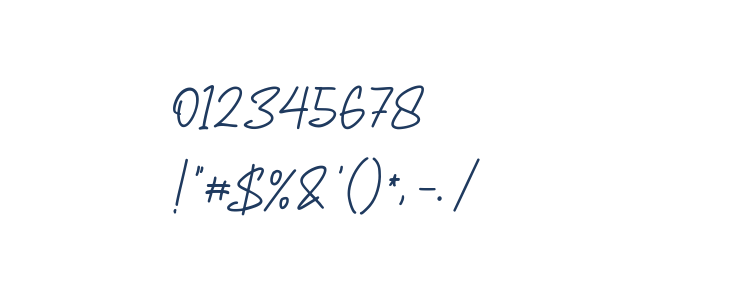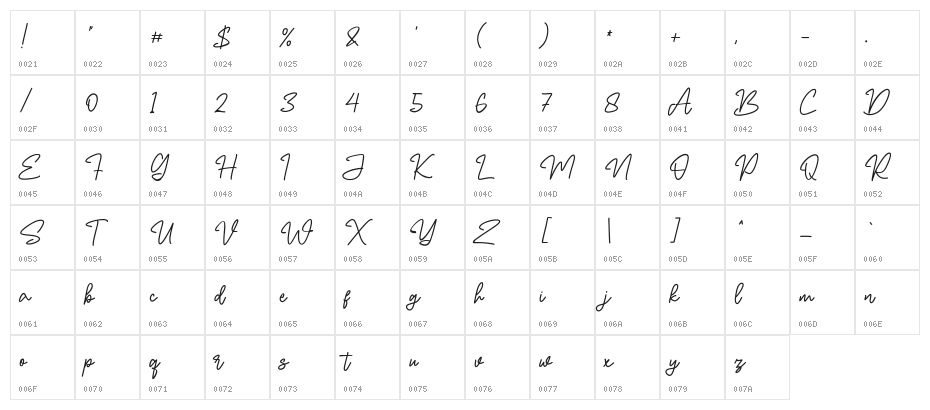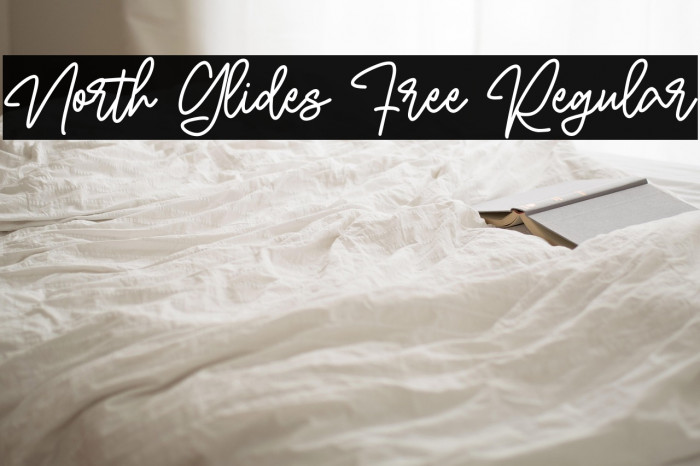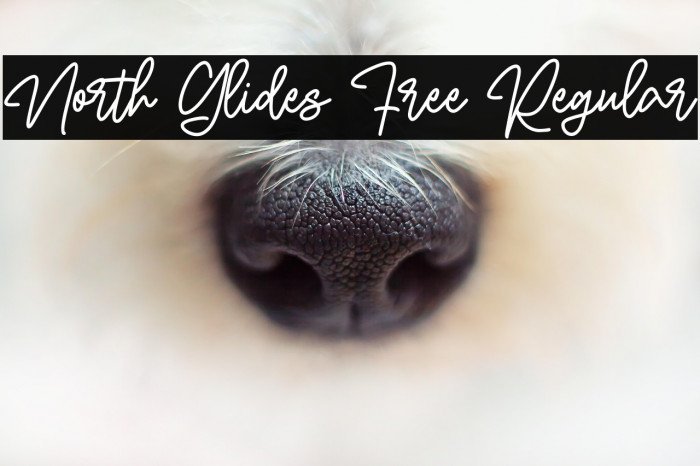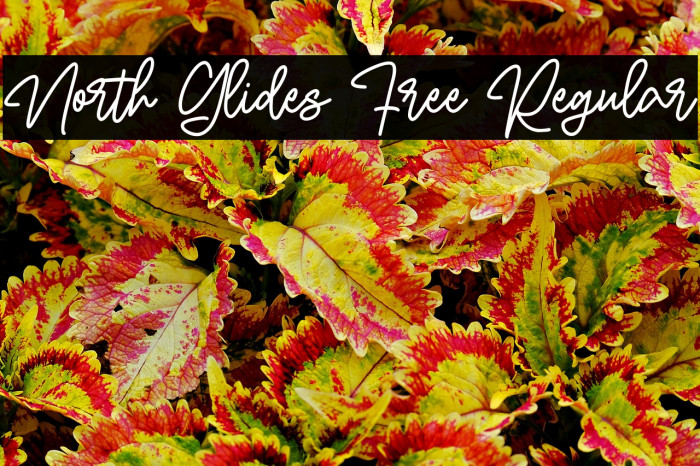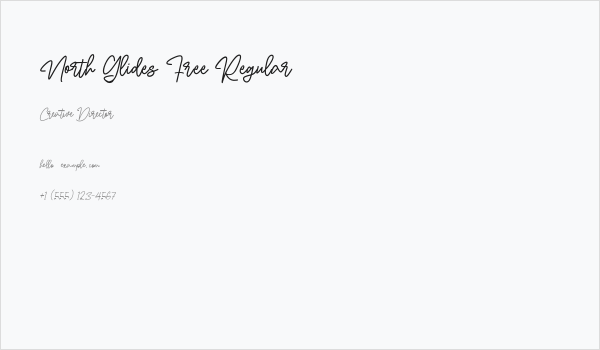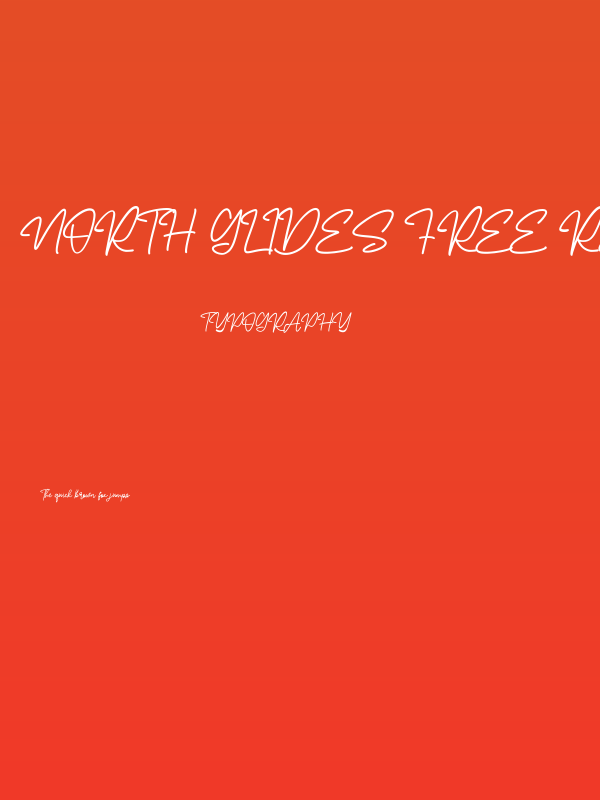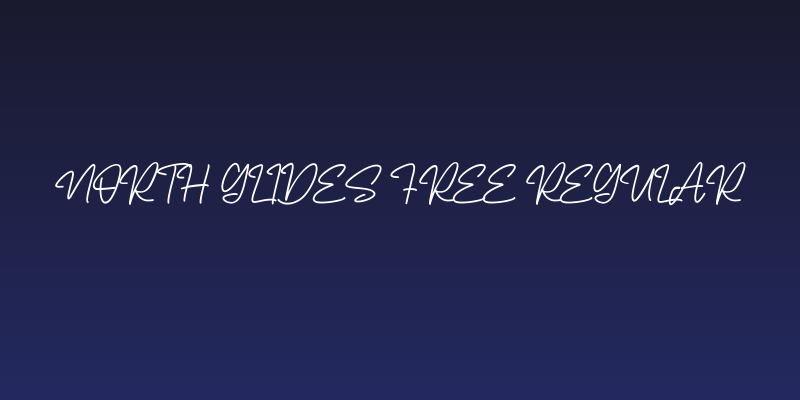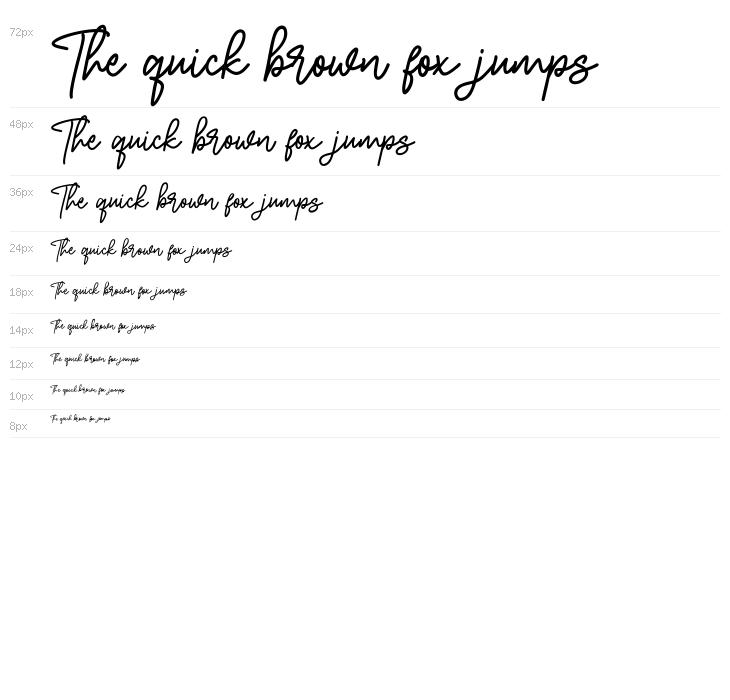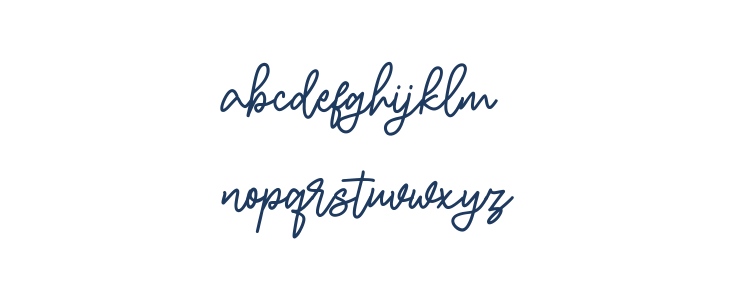
North Glides Free Regular Font
North Glides Free Regular Description
This font features a flowing, cursive style that exudes elegance and sophistication. The uppercase letters are tall and slender, with graceful loops and curves that give them a sense of movement. The lowercase letters are equally fluid, with a slightly more compact form that maintains readability while adding a touch of charm. The numerals are consistent with the overall style, offering a harmonious blend of curves and lines. Special characters are thoughtfully designed to complement the alphabet, ensuring a cohesive look across all text. This font is perfect for projects that require a personal, handwritten touch.